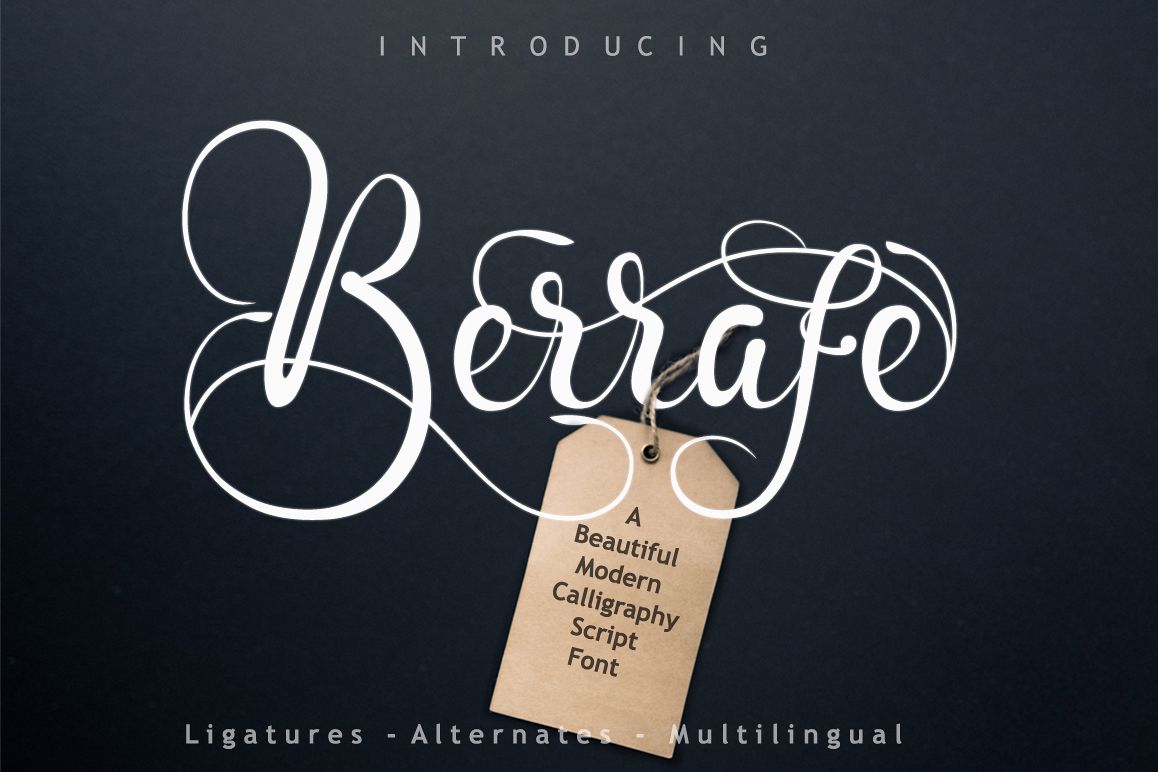
Berrafe Font
Berrafe is a beautiful modern calligraphy script font.Perfect for wedding invites, logos, branding, quotes, product packaging, headers, and more.
• Uppercase A-Z
• Lowercase a-z
• Numbers 0-9
• Accents
• Punctuation
• Uppercase Alternates
• Lowercase Alternates
• Custom Ligatures